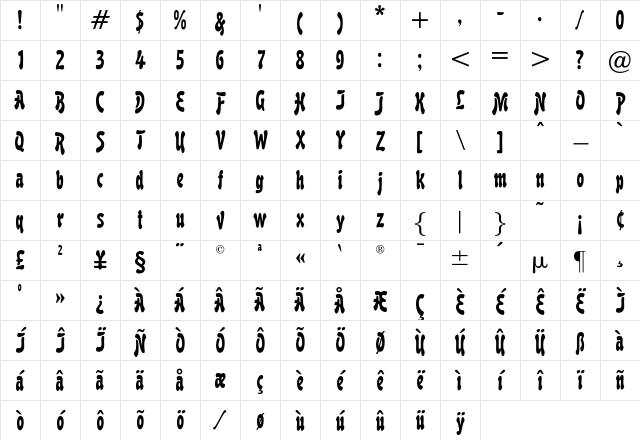
BoutiqueOpti Regular
Design Context for BoutiqueOpti
BoutiqueOpti is a composed and adaptable typeface that performs quietly and consistently across a wide range of design contexts.